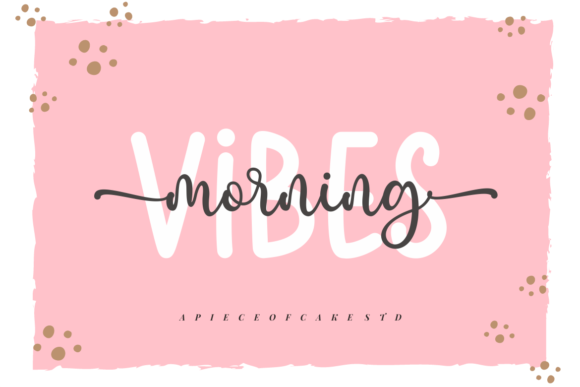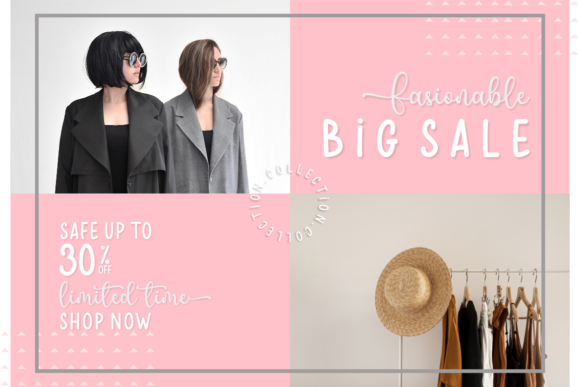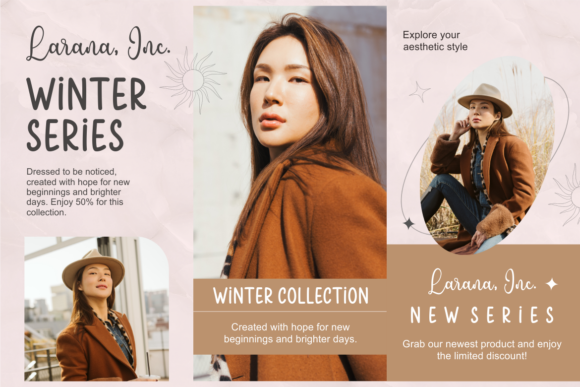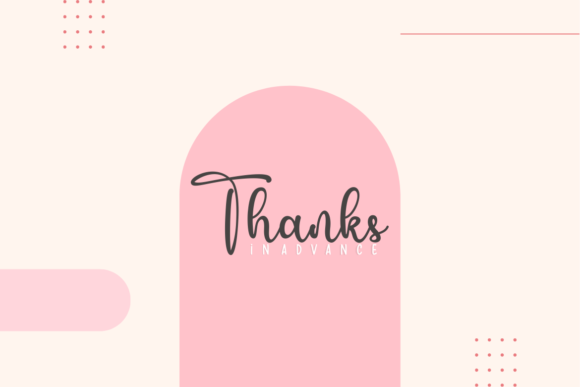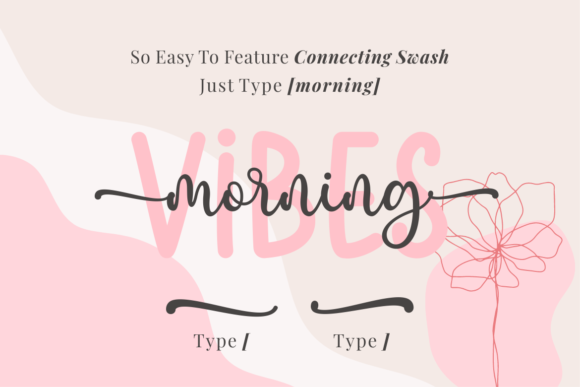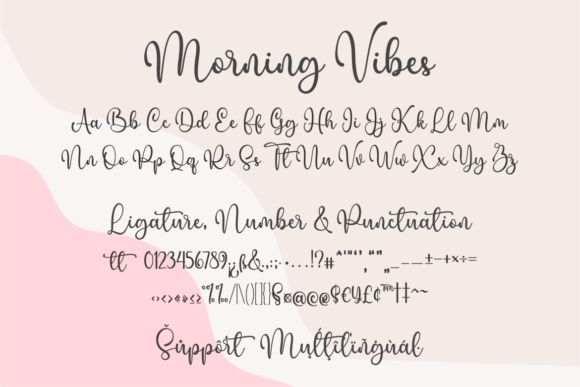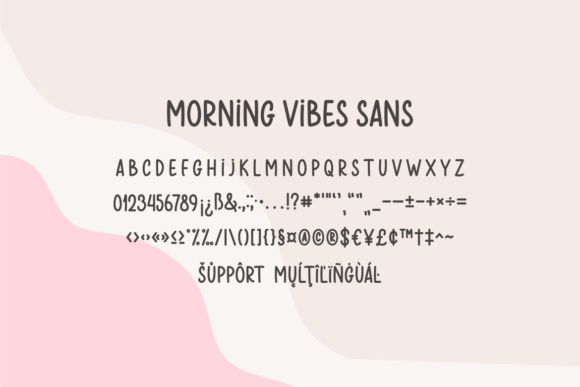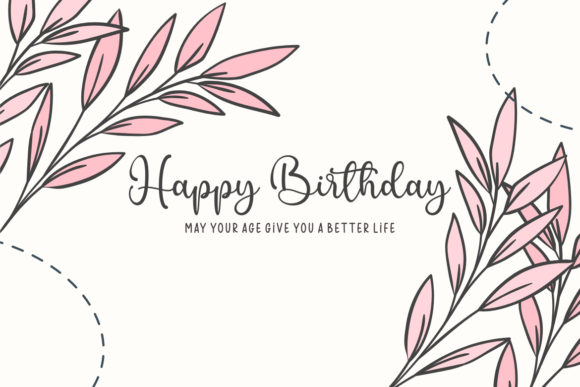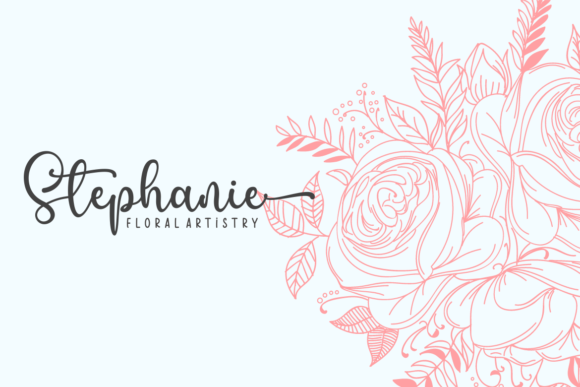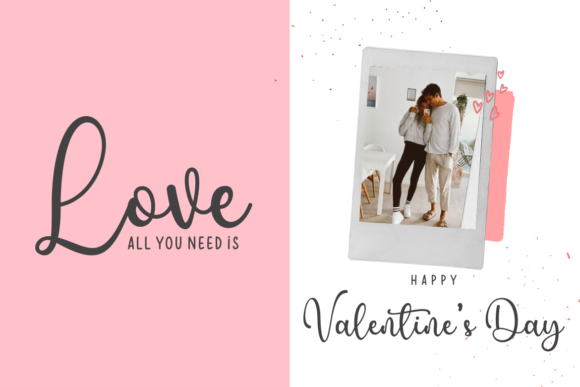
Morning Vibes Duo Font
About Morning Vibes Duo Font
Morning Vibes Duo is a captivating and versatile font duo that consists of a stylish script font and a complementary sans serif font. This dynamic combination offers endless creative possibilities and is well-suited for a wide range of applications. Whether you’re designing greeting cards, crafting headlines, or working on various other projects, Morning Vibes Duo is sure to infuse a romantic and charming essence into each of your creations.
The script font exudes elegance and delicacy, with its flowing and intricate characters adding a touch of sophistication to your designs. The accompanying sans serif font provides a clean and modern contrast, creating a balanced and harmonious visual appeal. Together, these fonts work seamlessly to enhance the overall aesthetics of your projects.
Morning Vibes Duo brings a sense of unity and cohesiveness to your design work. The combination of script and sans serif allows you to play with different styles and create engaging typography layouts. Whether you’re aiming for a classic and timeless look or a contemporary and trendy vibe, this font duo has you covered.
The romantic touch that Morning Vibes Duo adds to your creations is perfect for capturing emotions and connecting with your audience. Whether you’re designing for weddings, special occasions, branding, or any other creative endeavor, this font duo will help you achieve stunning results that leave a lasting impression.
Experience the beauty and versatility of Morning Vibes Duo as you incorporate it into your designs. Its ability to evoke a sense of charm and elegance makes it an excellent choice for adding a touch of magic to various projects, ensuring that each creation resonates with style and emotion.